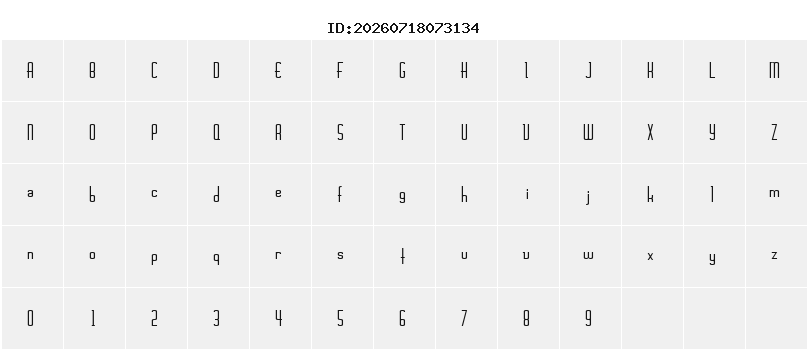
ChaslineBold Preview
• Font Name: ChaslineBold
• Full Font Name: ChaslineBold Bold
About ChaslineBold.ttf
ChaslineBold.ttf is a modern, elegant sans-serif font designed for ultimate readability and visual harmony. Perfect for branding, headlines, web design, and print materials.